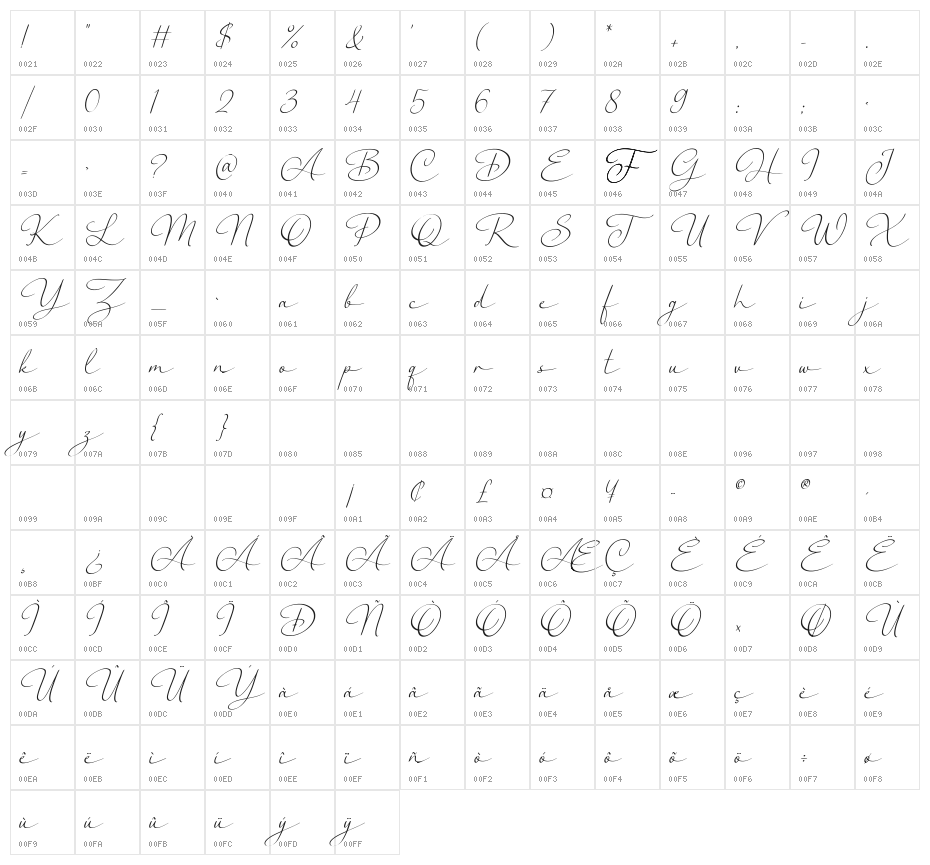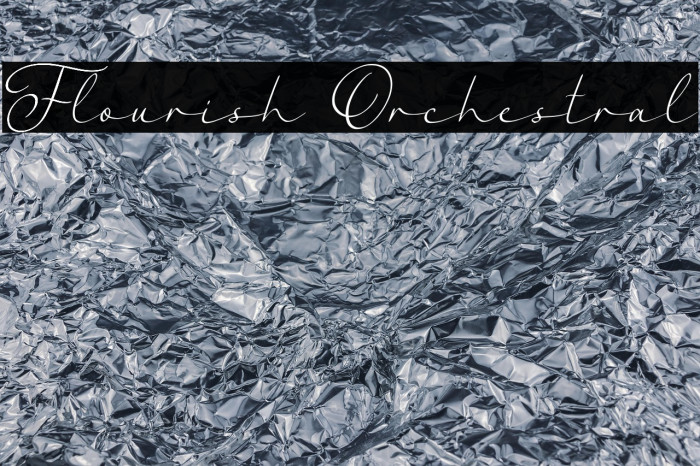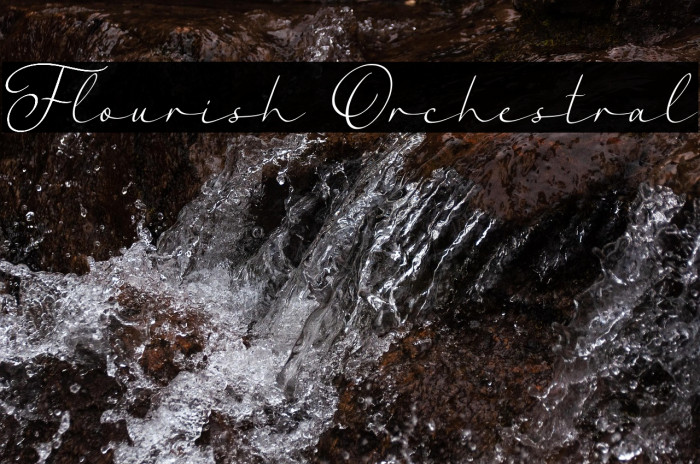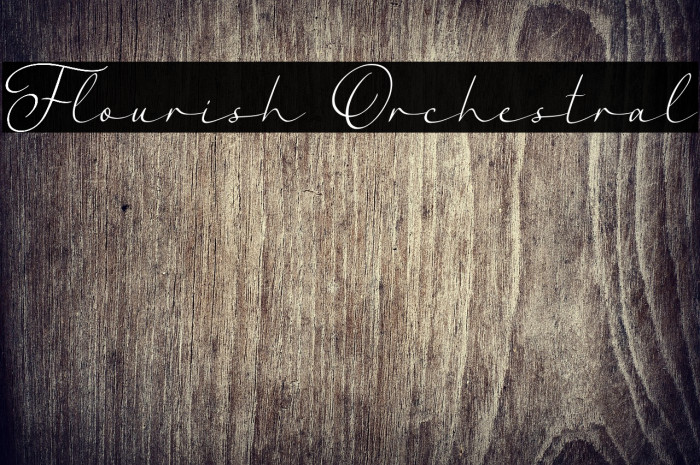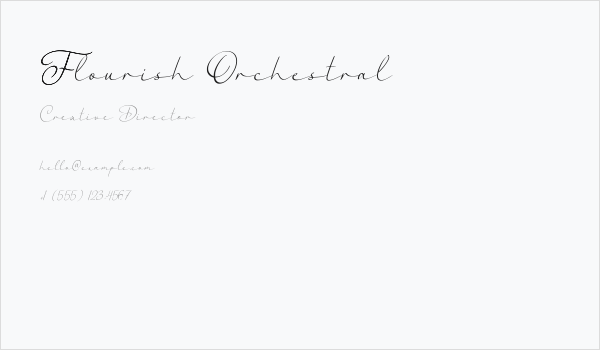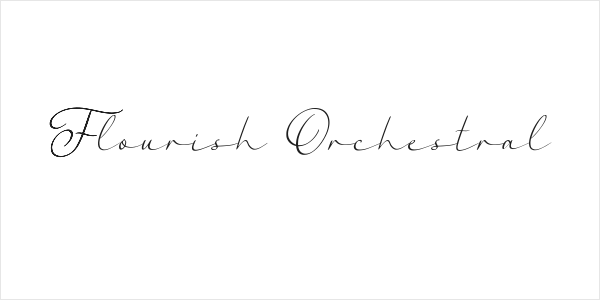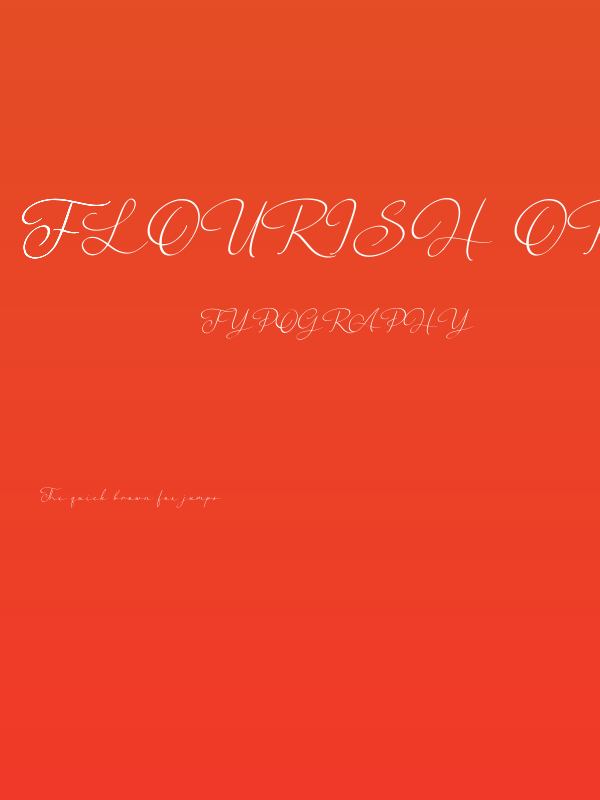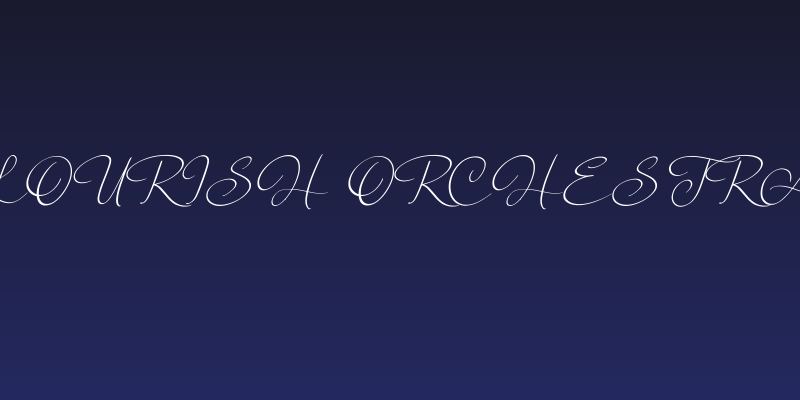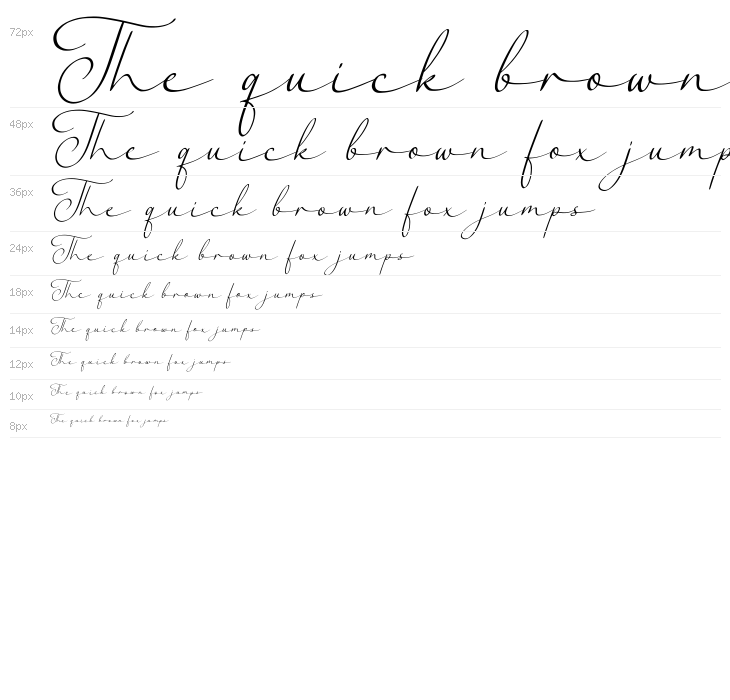
Flourish Orchestral Font
Flourish Orchestral Description
This elegant script font features flowing, cursive characters with a refined and sophisticated appearance. The uppercase letters are beautifully ornate, with intricate loops and flourishes that add a touch of grandeur. The lowercase letters maintain a graceful continuity, creating a seamless flow in text. Numbers and special characters are designed with the same attention to detail, ensuring consistency throughout. The font's thin strokes and delicate curves give it a light, airy feel, making it ideal for formal invitations, elegant branding, or any project that requires a touch of class and sophistication.
| Use Case | Invitations, Branding, Stationery |
| Proposed Projects | Ideal for wedding invitations, luxury branding, elegant stationery, and formal event programs. |